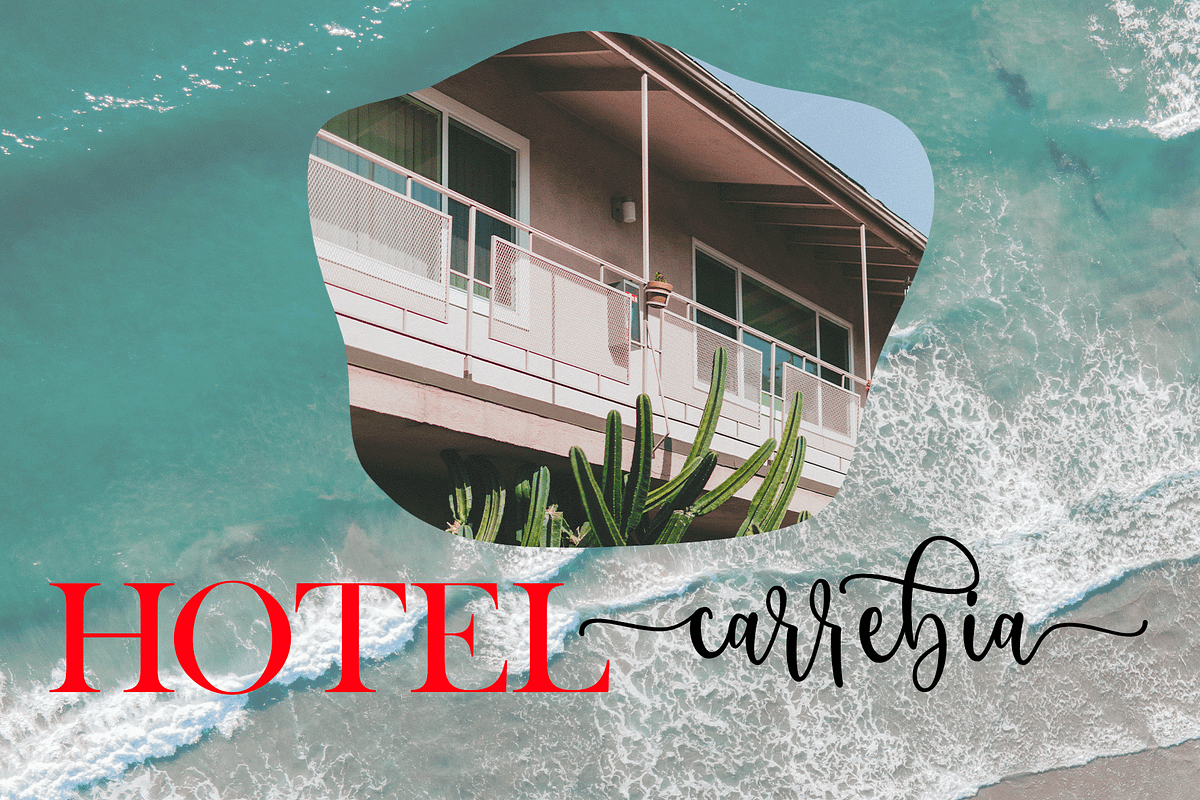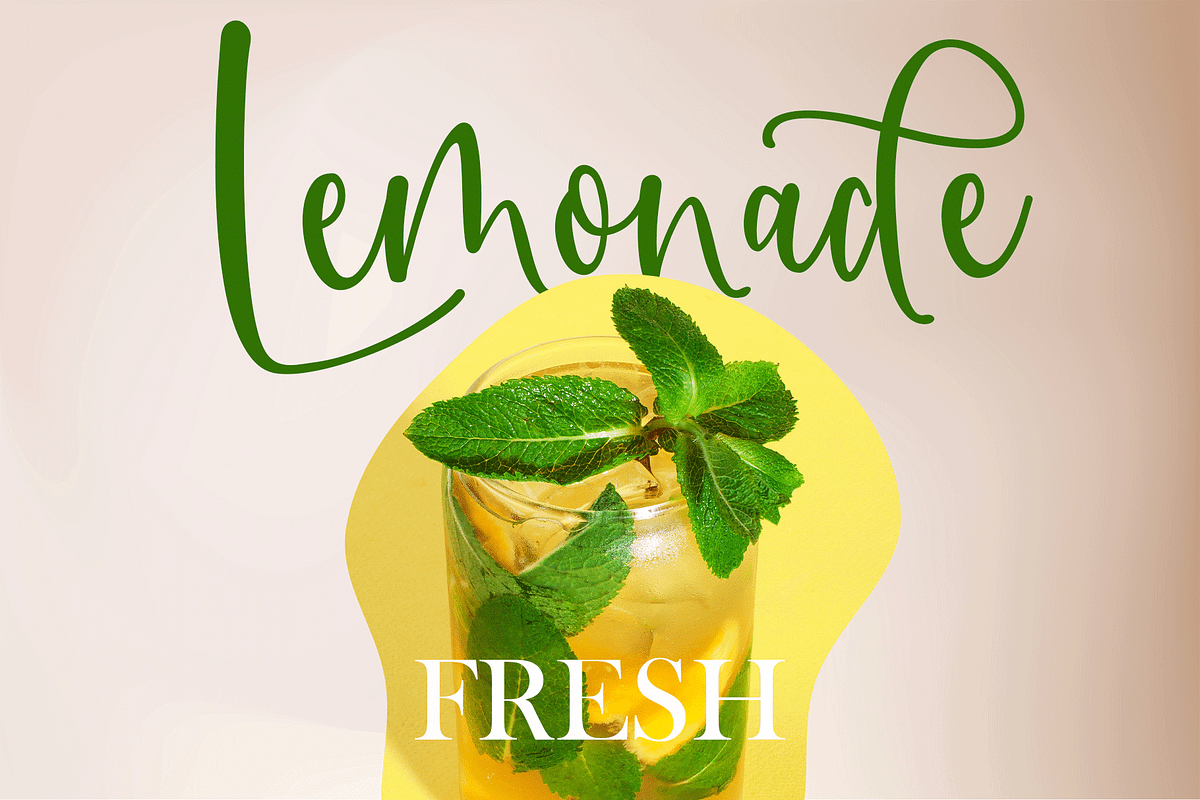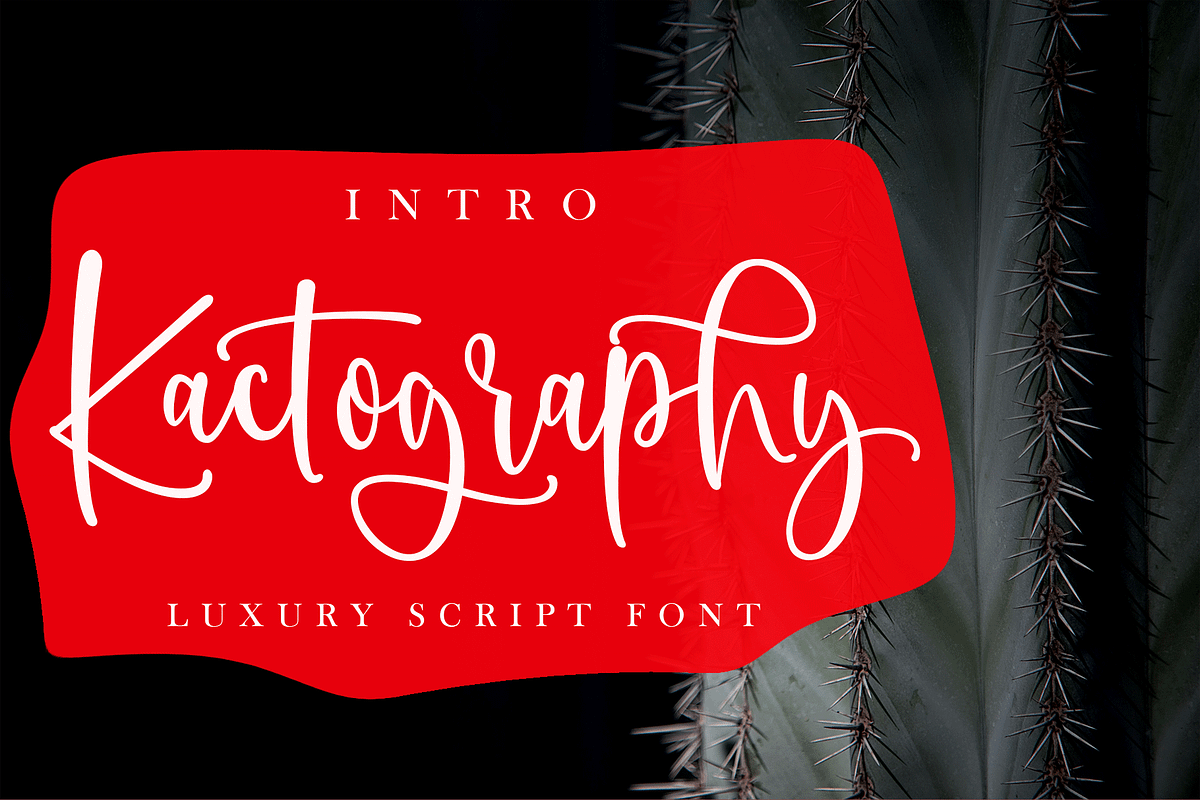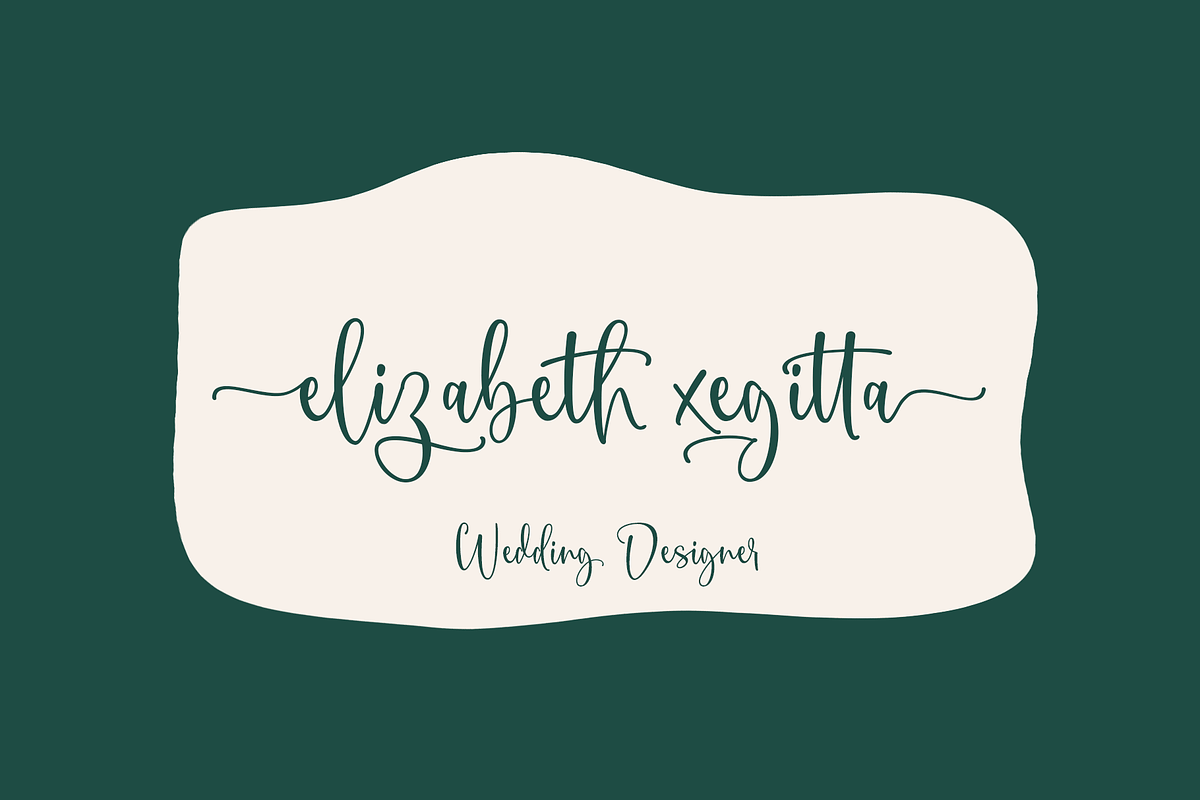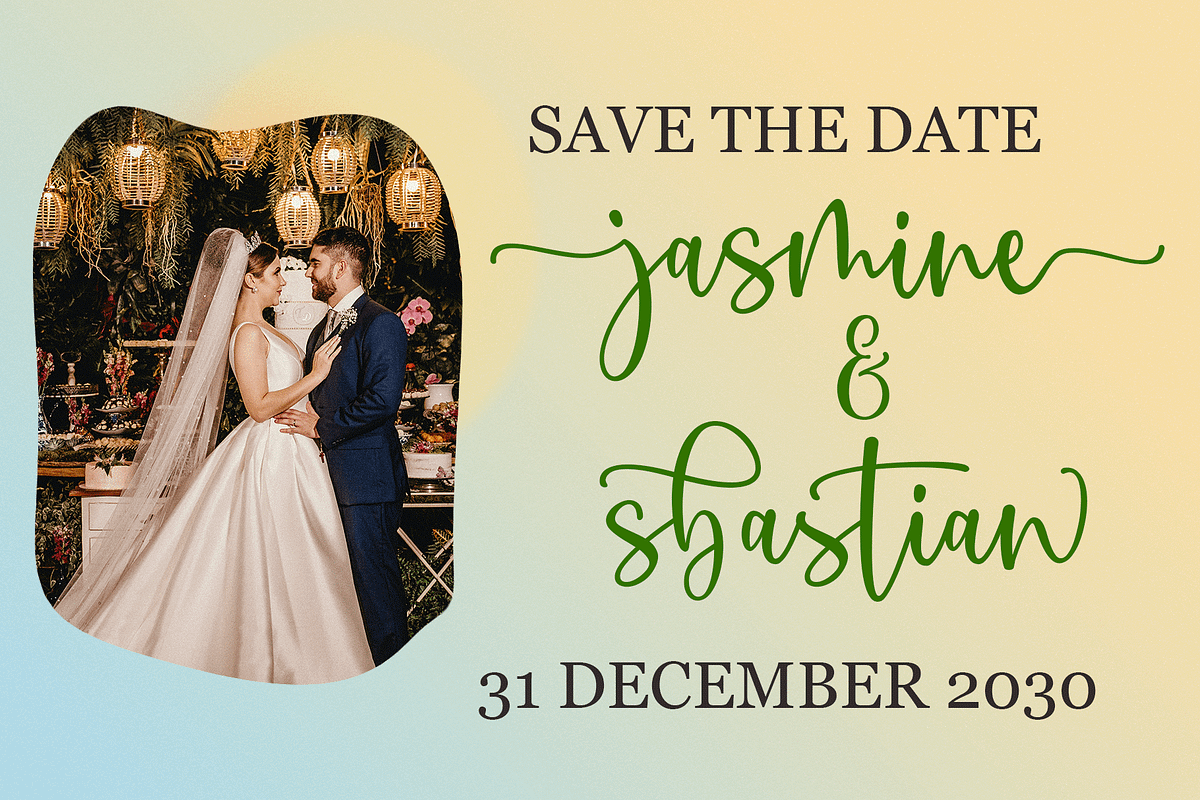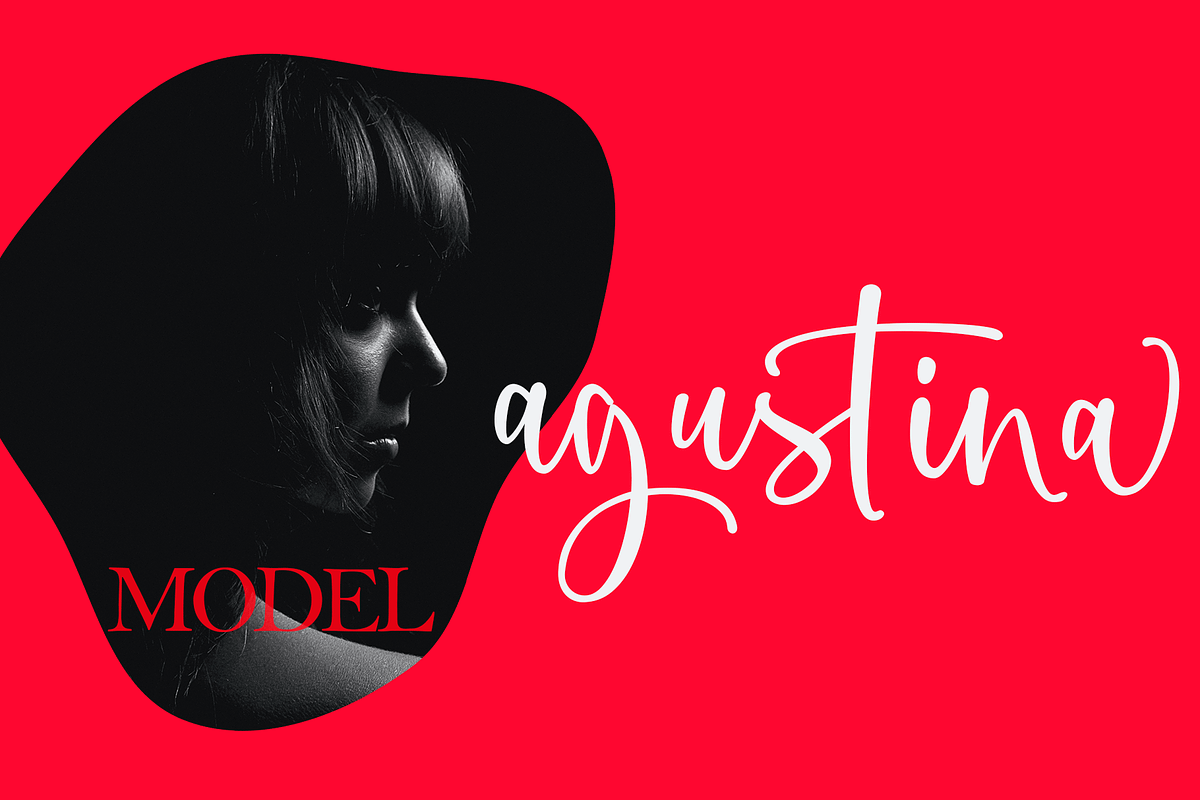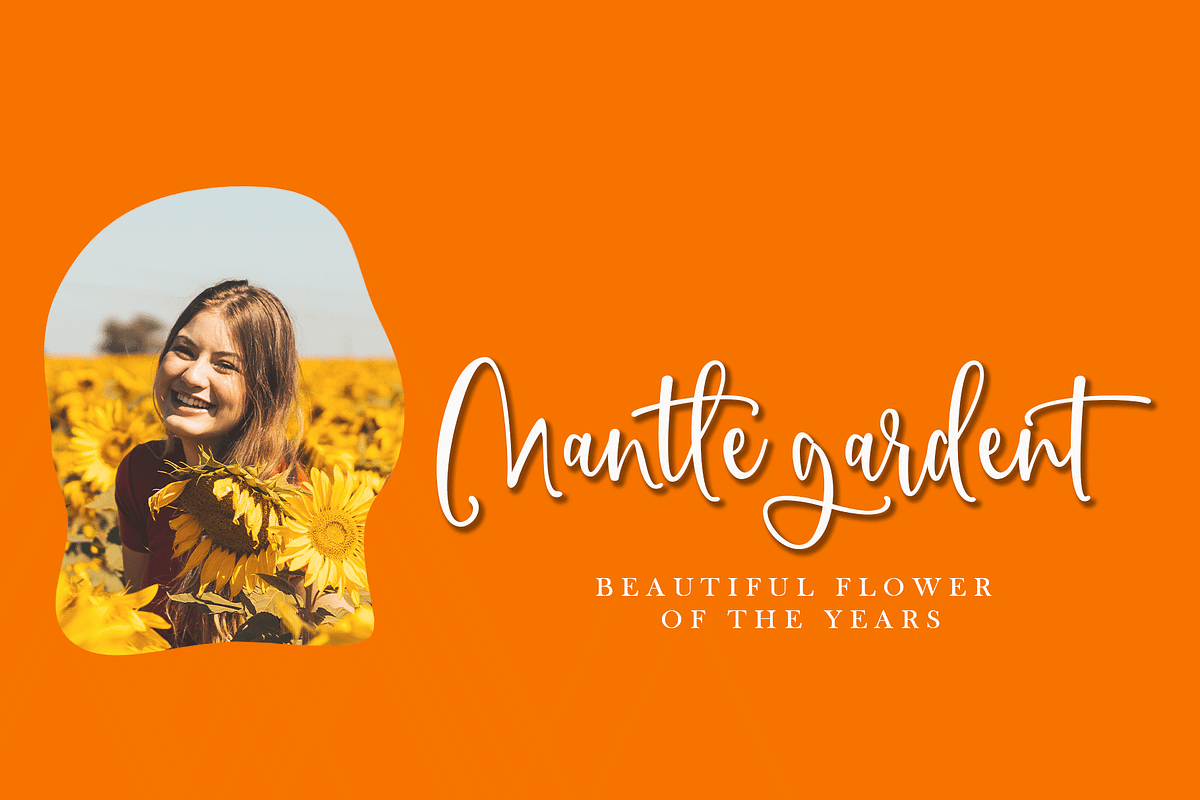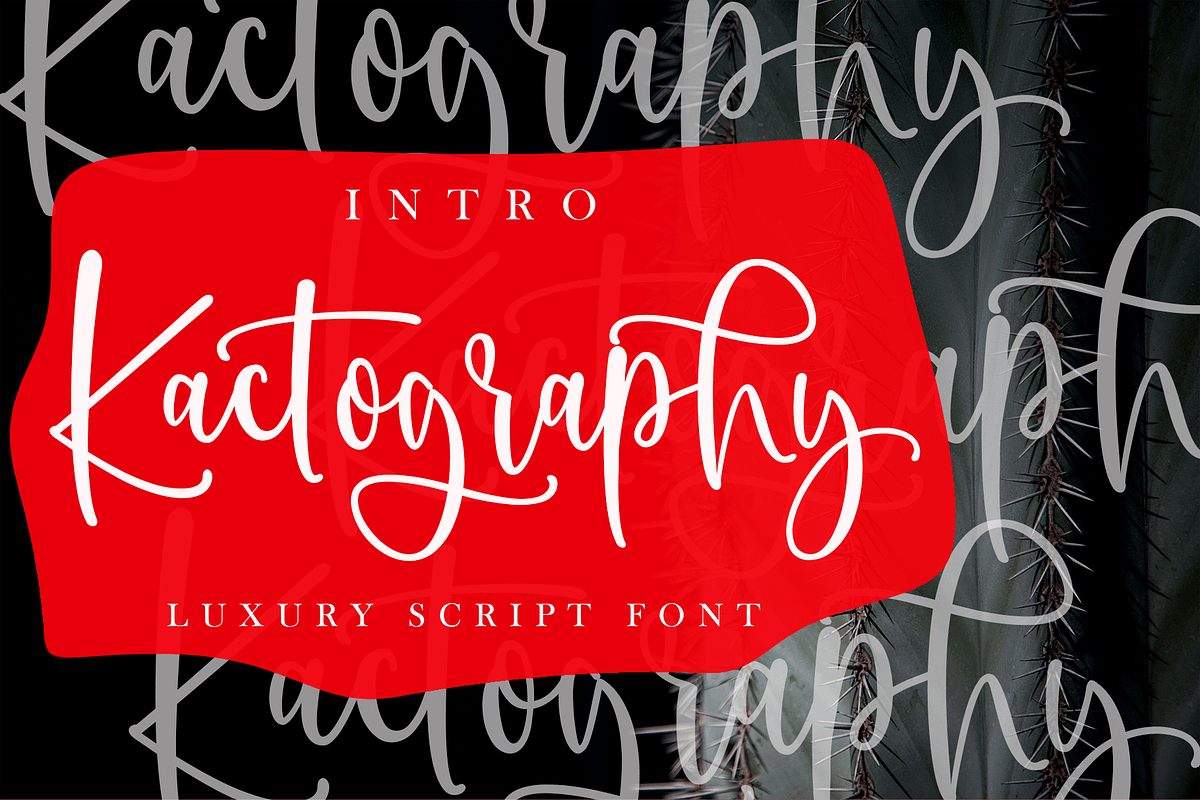
Kactography Calligraphy
Kactography Calligraphy is a stylish calligraphy font that features a varying baseline, smooth line, classic and interesting touch. Can be used for various purposes. such as headings, signature, logos, posters, t-shirt, signage, lable, wedding invitation, badges etc.